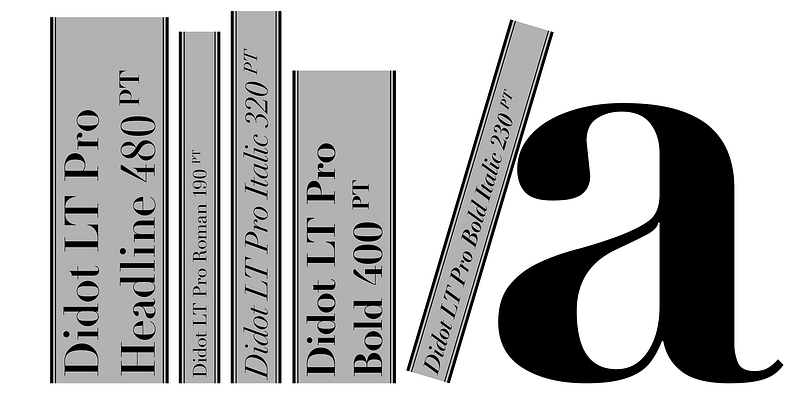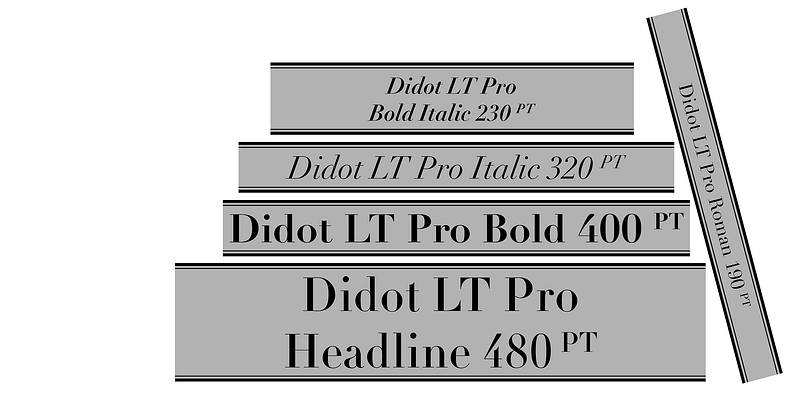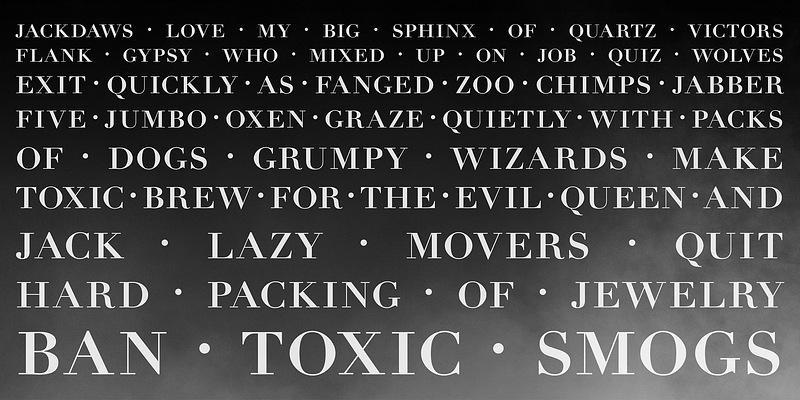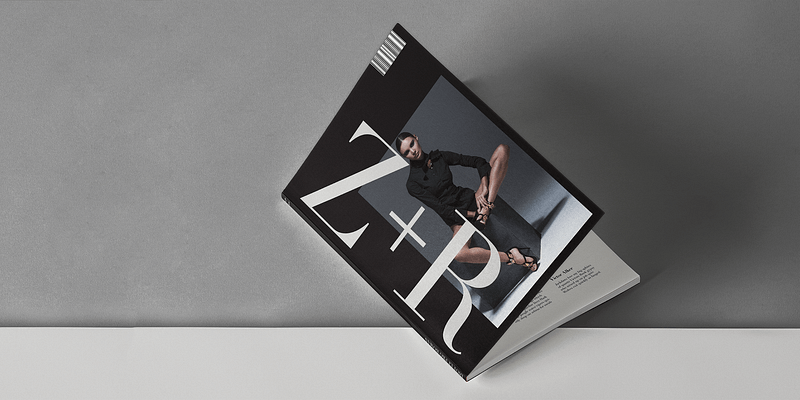
Linotype Didot™ was drawn by Adrian Frutiger in 1991, and is based on the fonts cut by Firmin Didot between 1799 and 1811. Frutiger also studied the Didot types in a book printed by the Didots in 1818, “La Henriade” by Voltaire. This beautifully drawn family is the right choice for elegant book and magazine designs, as well as advertising with a classic touch.